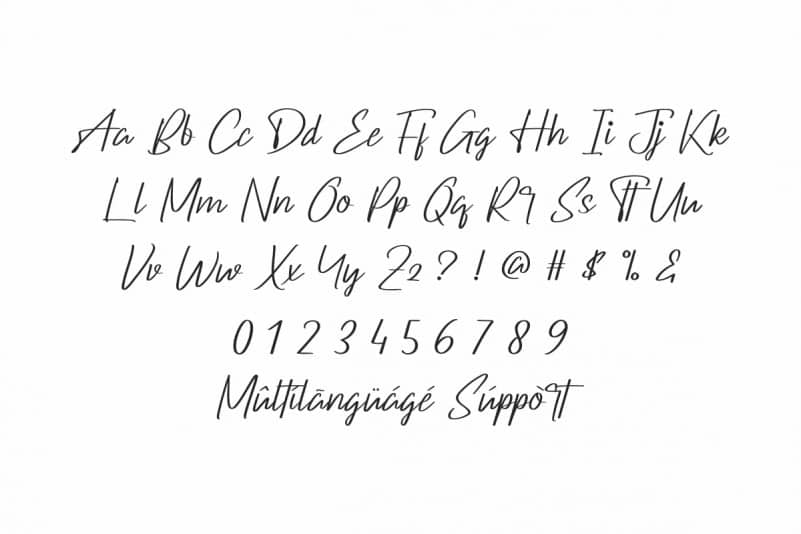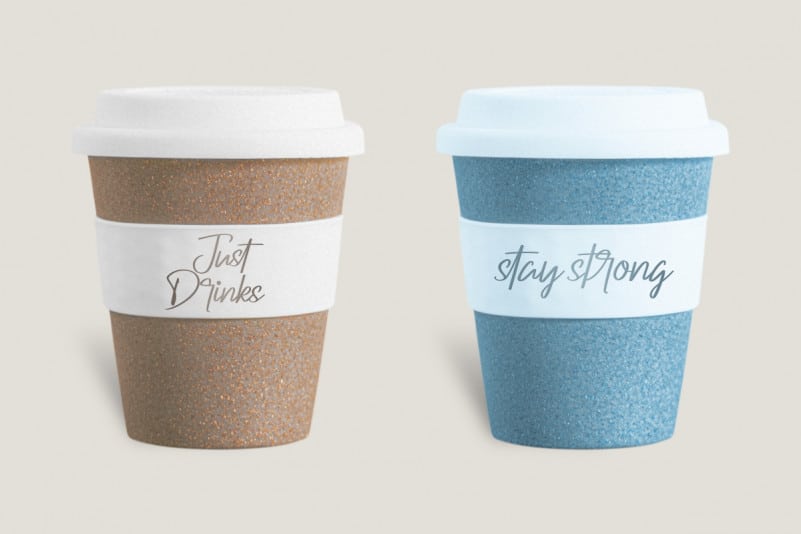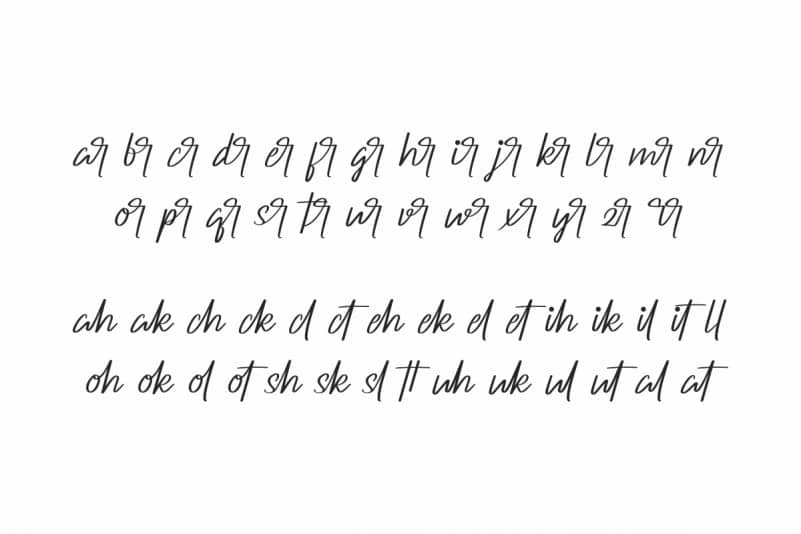
Darkboats Signature Font
Darkboats Font is an elegant signature handwriting font, Made with love in Indonesia. Great for events, wedding, logotype etc